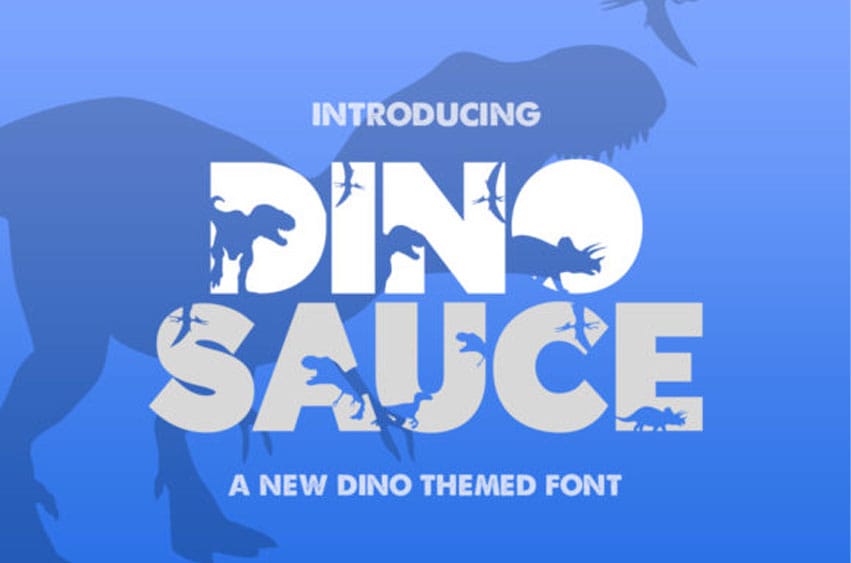
Dinosauce Font Open the door, get on the floor, everybody walk the dinosaur!
Full of your fave prehistoric creatures, Dinosauce is perfect for any kids-themed design projects!